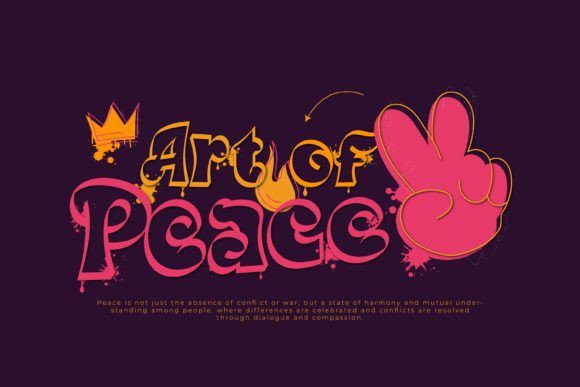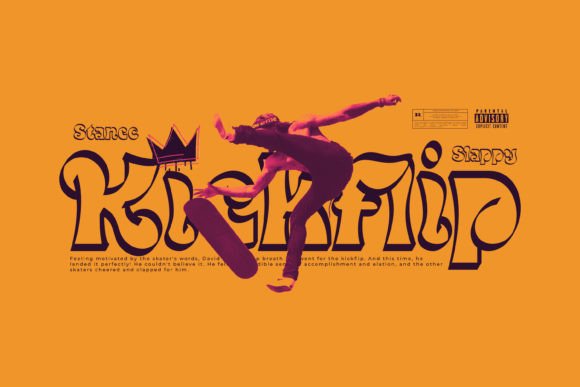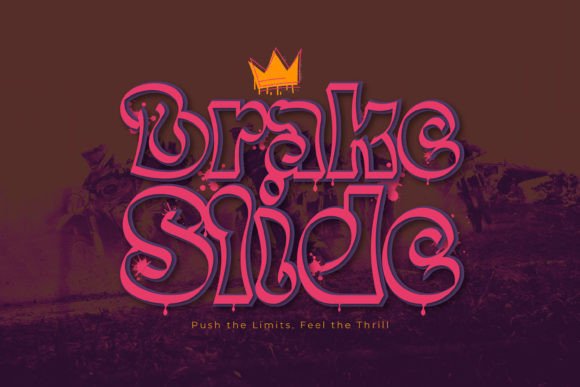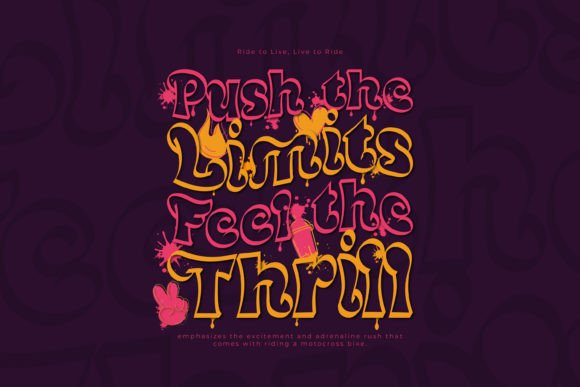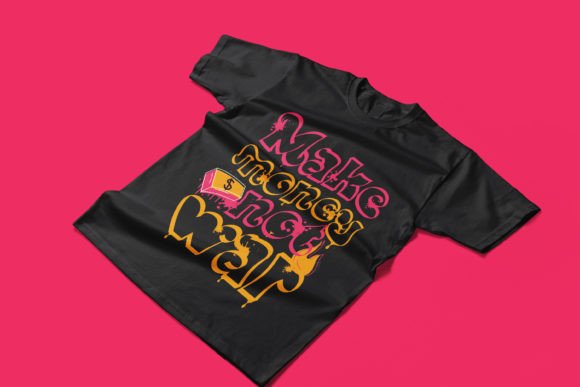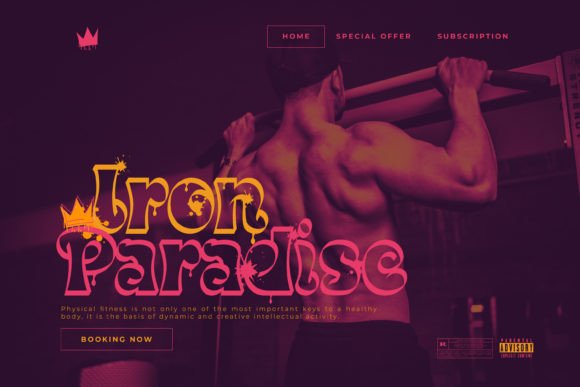
Gargamel Font: The Quirky and Playful Display Font for Creative Projects
In the world of typography, fonts play a crucial role in conveying the tone and personality of a brand or design. For designers and crafters looking for a font that stands out from the crowd, Gargamel Font is an excellent choice. This quirky and distinctive display font is a real eye-catcher, with its bold and playful design that demands attention.
The Unique Characteristics of Gargamel Font
Gargamel Font boasts unique and unconventional shapes that create a sense of fun and personality. Its bold design makes it perfect for projects that require a touch of creativity and originality. Whether you’re working on posters, packaging, social media graphics, or branding, Gargamel Font is an excellent choice. Its quirky nature allows it to add a dash of whimsy to any design, making it perfect for projects that require a bit of flair.
What Makes Gargamel Font Stand Out?
So, what sets Gargamel Font apart from other display fonts? Here are a few key features that make it a standout:
- Bold and Playful Design: Gargamel Font has a bold and playful design that grabs attention and demands to be noticed.
- Unique and Unconventional Shapes: The font features unique and unconventional shapes that add a touch of personality to any design.
- Perfect for Creative Projects: Gargamel Font is perfect for projects that require a touch of creativity and originality, such as posters, packaging, social media graphics, and branding.
How to Use Gargamel Font in Your Designs
- Pair it with a Simple Font: Pair Gargamel Font with a simple font to create contrast and make your design stand out.
- Use it for Headings and Titles: Use Gargamel Font for headings and titles to add a touch of personality to your design.
- Experiment with Colors and Textures: Experiment with different colors and textures to add depth and interest to your design.
The Benefits of Using Gargamel Font
- Instant Attention: Gargamel Font grabs attention and demands to be noticed, making it perfect for projects that require a bit of flair.
- Unique Personality: The font adds a touch of personality to any design, making it perfect for brands and designers looking to stand out.
- Versatility: Gargamel Font is versatile and can be used for a variety of projects, from posters and packaging to social media graphics and branding.
Who Can Benefit from Using Gargamel Font?
In conclusion, Gargamel Font is a quirky and distinctive display font that is perfect for designers and crafters looking to add a touch of creativity and originality to their projects. Its bold and playful design, unique and unconventional shapes, and versatility make it an excellent choice for a variety of projects. Whether you’re working on posters, packaging, social media graphics, or branding, Gargamel Font is sure to grab attention and make your design stand out.